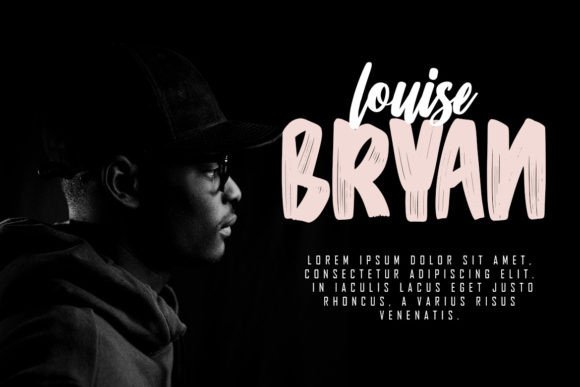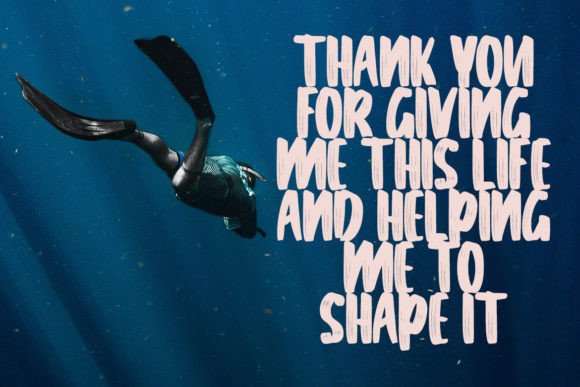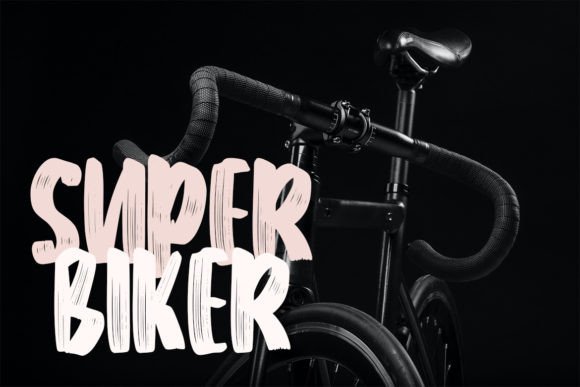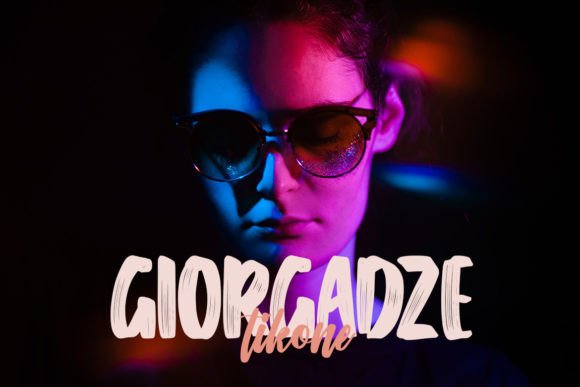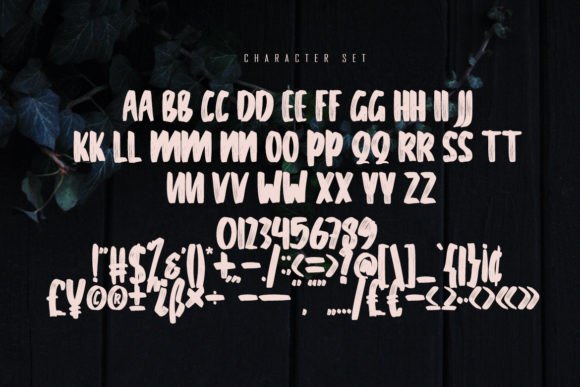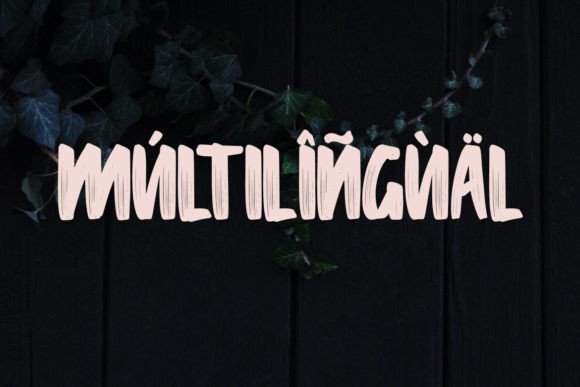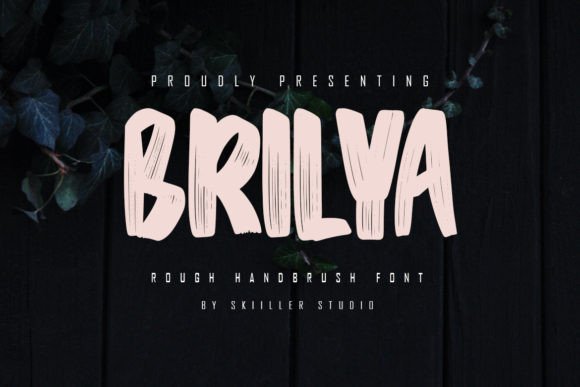
Introducing Brilya Font: The Perfect Blend of Natural Brushstrokes and Modern Typography
In the world of typography, fonts play a crucial role in conveying the tone and personality of a brand or design. For designers and crafters looking for a unique and authentic touch, Brilya Font is an excellent choice. Inspired by the natural strokes of a brush, Brilya Font brings a refreshing and realistic feel to any design project.
The Inspiration Behind Brilya Font
Brilya Font was created with the intention of capturing the essence of natural brushstrokes. The font’s creator used a brush pen to write in quick motion, resulting in a dry and realistic look that sets it apart from more traditional fonts. This distinctive approach gives Brilya Font its unique character, making it perfect for designs that require a personal touch.
Characteristics of Brilya Font
So, what makes Brilya Font so special? Here are a few key characteristics that make it an excellent choice for designers and crafters:
- Natural and realistic look: Brilya Font’s brushstroke-inspired design gives it a genuine and organic feel that’s hard to replicate with traditional fonts.
- Quick and expressive: The font’s dry and slightly imperfect look makes it perfect for designs that require a sense of spontaneity and creativity.
- Versatile: Brilya Font is suitable for a wide range of design applications, from branding and magazine fashion design to logos, product packaging, and more.
Use Cases for Brilya Font
Brilya Font’s versatility makes it an excellent choice for various design projects. Here are some use cases where Brilya Font truly shines:
- Branding: Create a unique and memorable brand identity with Brilya Font’s distinctive look.
- Magazine fashion design: Add a touch of elegance and sophistication to your fashion magazine with Brilya Font’s stylish and expressive design.
- Logos: Create a logo that stands out from the crowd with Brilya Font’s bold and eye-catching design.
- Product packaging: Give your product packaging a personal touch with Brilya Font’s natural and realistic look.
- Headlines and posters: Make a statement with Brilya Font’s bold and attention-grabbing design.
- Merchandise: Create unique and stylish merchandise with Brilya Font’s versatile design.
- Social media and greeting cards: Add a personal touch to your social media posts and greeting cards with Brilya Font’s friendly and approachable design.
Tips for Using Brilya Font
To get the most out of Brilya Font, here are a few tips to keep in mind:
- Experiment with different sizes: Brilya Font looks great in various sizes, so don’t be afraid to experiment and find the perfect size for your design.
- Play with colors: Brilya Font’s natural look pairs well with a range of colors, so try out different color combinations to find the one that works best for your design.
- Mix and match with other fonts: Brilya Font pairs well with other fonts, so don’t be afraid to combine it with other typography to create a unique look.
Brilya Font is an excellent choice for designers and crafters looking for a unique and authentic touch. Its natural and realistic look, combined with its versatility and expressiveness, make it perfect for a wide range of design applications. Whether you’re working on a branding project, magazine fashion design, or simply looking for a stylish font for your social media posts, Brilya Font is definitely worth considering.